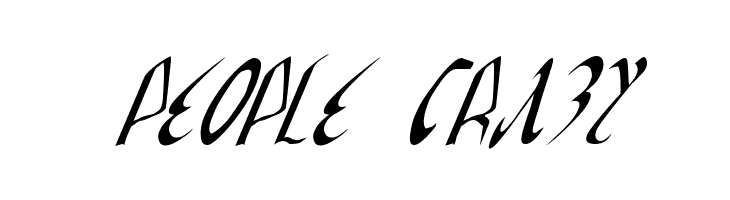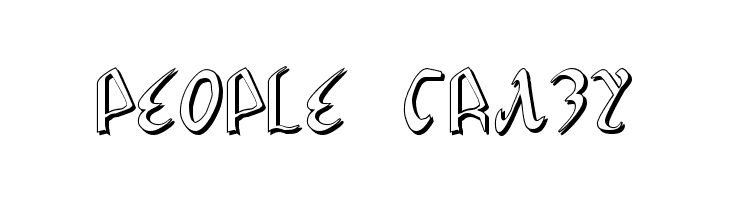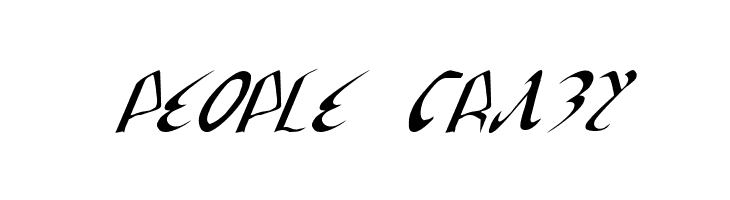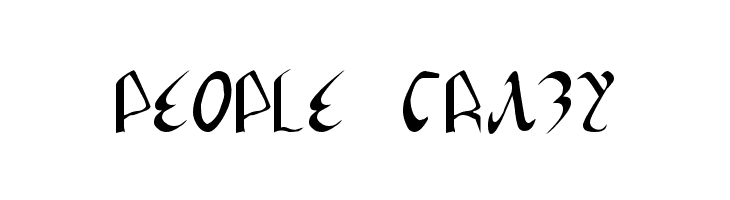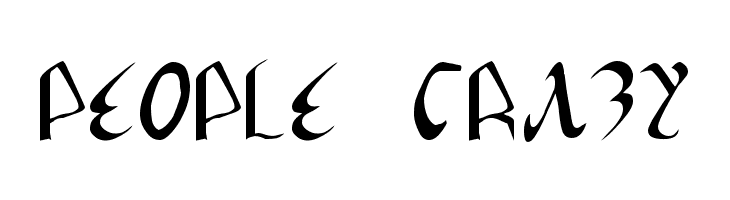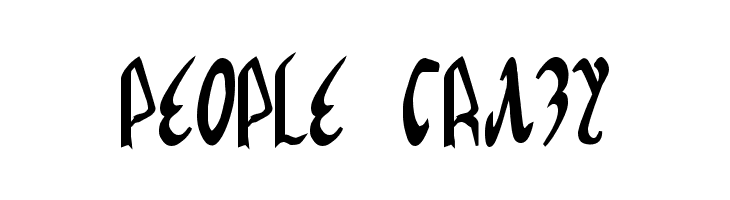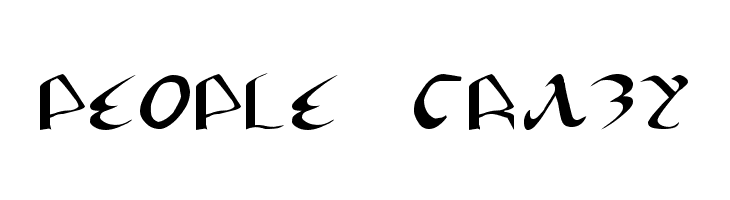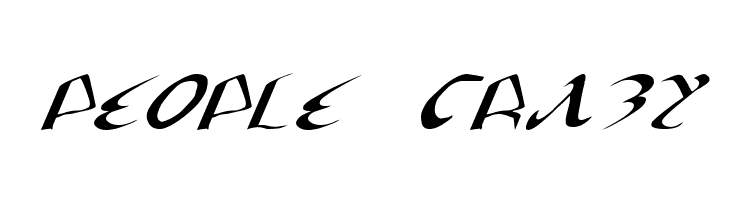
Bladog Personal Use Regular Font
- Font: Bladog Personal Use Regular
A dynamic, italicized font with sharp, angular strokes and high contrast.
A bold, Gothic-inspired font with a shadow effect for dramatic impact.
A dynamic, italic font with sharp, angular strokes and fluid forms.
A bold, gothic-inspired font with sharp, angular lines and a medieval flair.
A bold, gothic-inspired font with sharp, angular lines and medieval flourishes.
A bold, gothic-inspired font with sharp, angular edges and dramatic curves.
A bold, calligraphic font with sharp, angular strokes and high contrast.
A dynamic and expressive italic font with sharp, angular edges and varying stroke thickness.